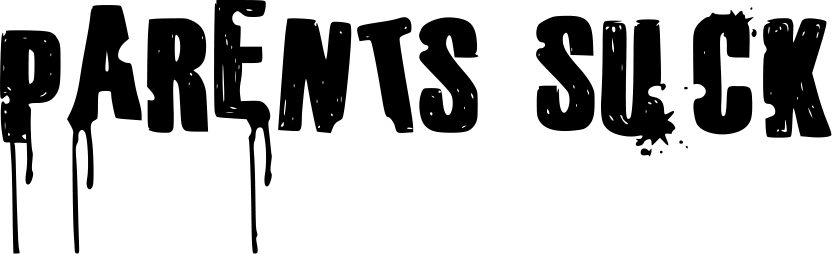
Parents Suck Font
Parents Suck font has two very special features; one is that each of the letters has the color being dropped, and another is the irregularity of the characters, each of them may be designed diagonally or vintage.
This explosion font does not include lowercase letters and is a great design for many military posters in that you can create a scary atmosphere with elements such as bullets, guns, and blood.